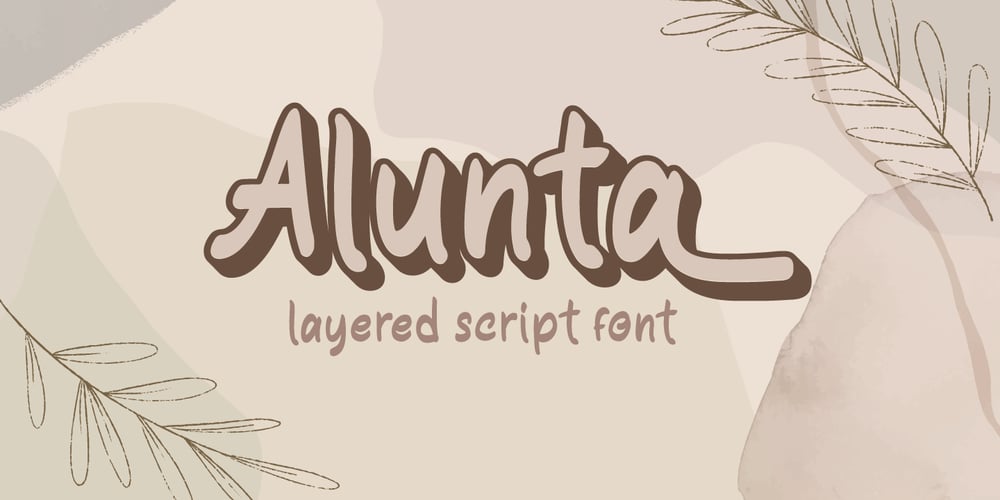
Alunta Font Family was designed by Fadli Ramadhan Iskandar and published by Attype Studio. Alunta contains 4 styles and family package options. Alunta is a layered script font with versatile style and use it to create spectacular designsCombine it with Alunta – Extrude & Ending Swash to make an amazing 3D effect on your letter! Alunta perfect for wedding promotion, branding, logo, invitation, stationery, social media post, product packaging, merchandise, blog design, game titles, cute style design, Book/Cover Title and more.What’s Included :- Alunta Family Font- Multilingual Support – Made it into separated file to make it easier to use by beginner & separated file user can use the font with software which doesn’t accept open type features.—Hope you enjoy with our font!Attype Studio